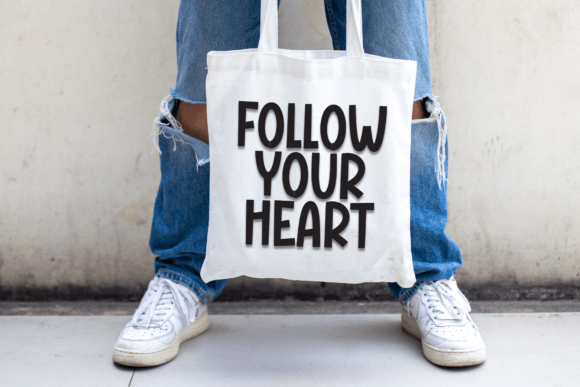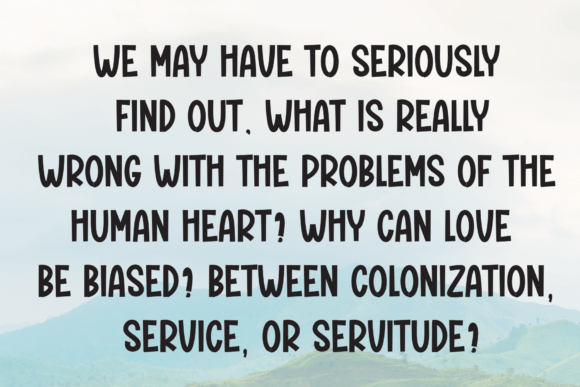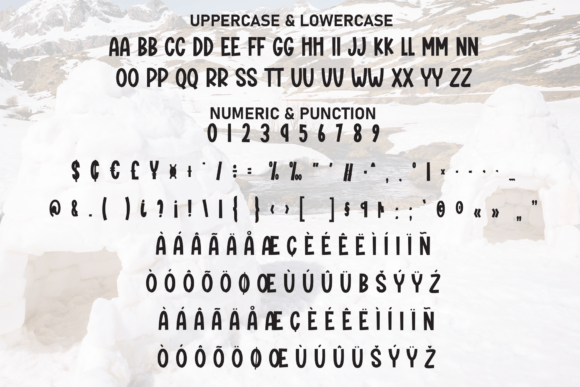
Introduction to Igloo House Font Font
Fonts play a crucial role in design, and the Igloo House Font font is a typeface that brings both character and versatility to any project. Whether you’re working on a branding project, a website, or a print design, the Igloo House Font font offers a unique style that can elevate your work.
| 📌 Font Name | Igloo House Font |
| 👤 Author | william jhordy |
Introducing a charming, friendly handwritten display font that naturally exudes sweetness.
This delightful eye-catchy font is perfect for crafting enchanting wedding invitations, heartwarming cards, and any other designs that could use a whimsical touch Make your creations stand out with this fun-filled font that adds a personal and joyous vibe to every masterpiece.
The Igloo House Font font is more than just a typeface – it’s a design tool that helps you communicate your message with style and clarity. Its unique character set and versatile design make it suitable for a wide range of applications, from elegant invitations to bold headlines.
With its carefully crafted letterforms and balanced proportions, the Igloo House Font font ensures readability and visual appeal across all mediums.
The Igloo House Font font stands out with its unique design, exceptional readability, and versatility across various design applications.